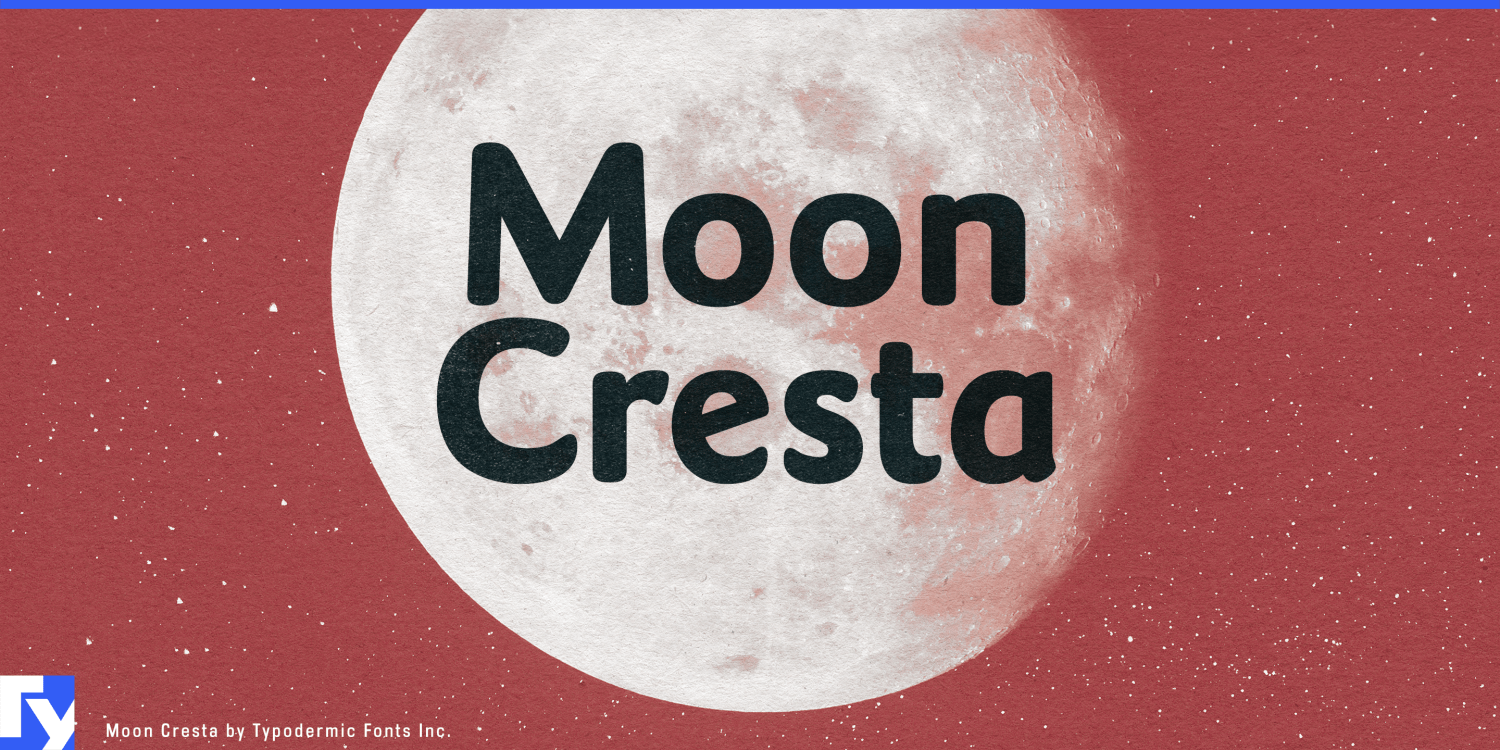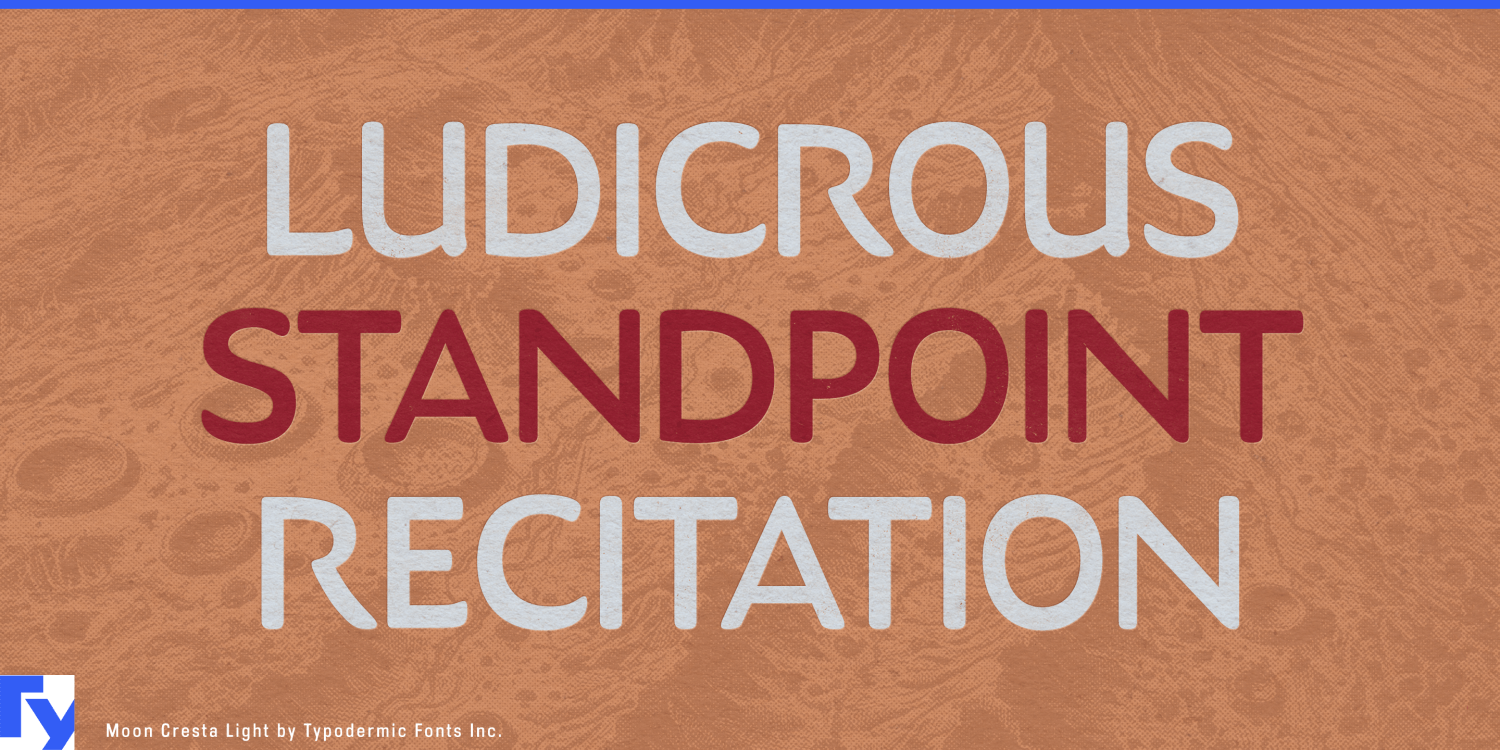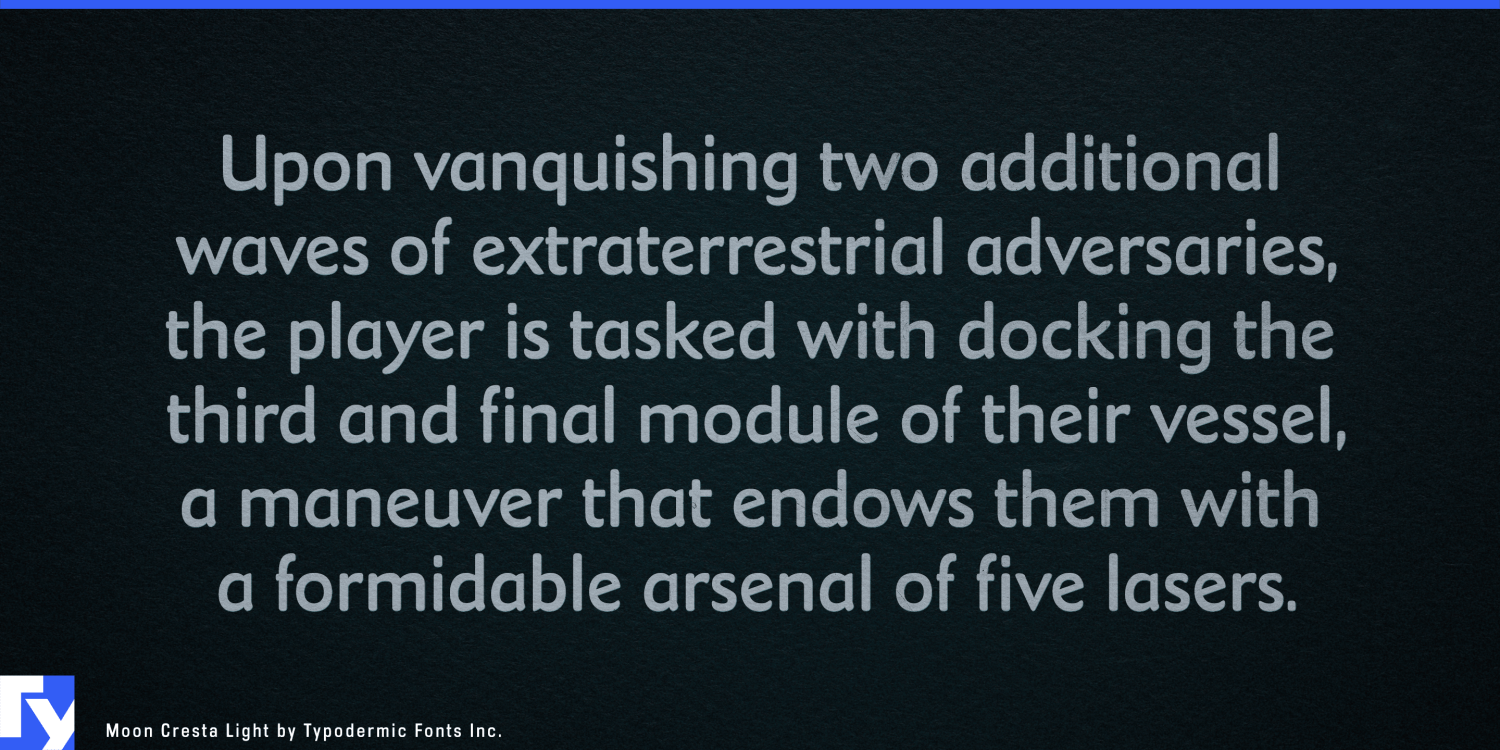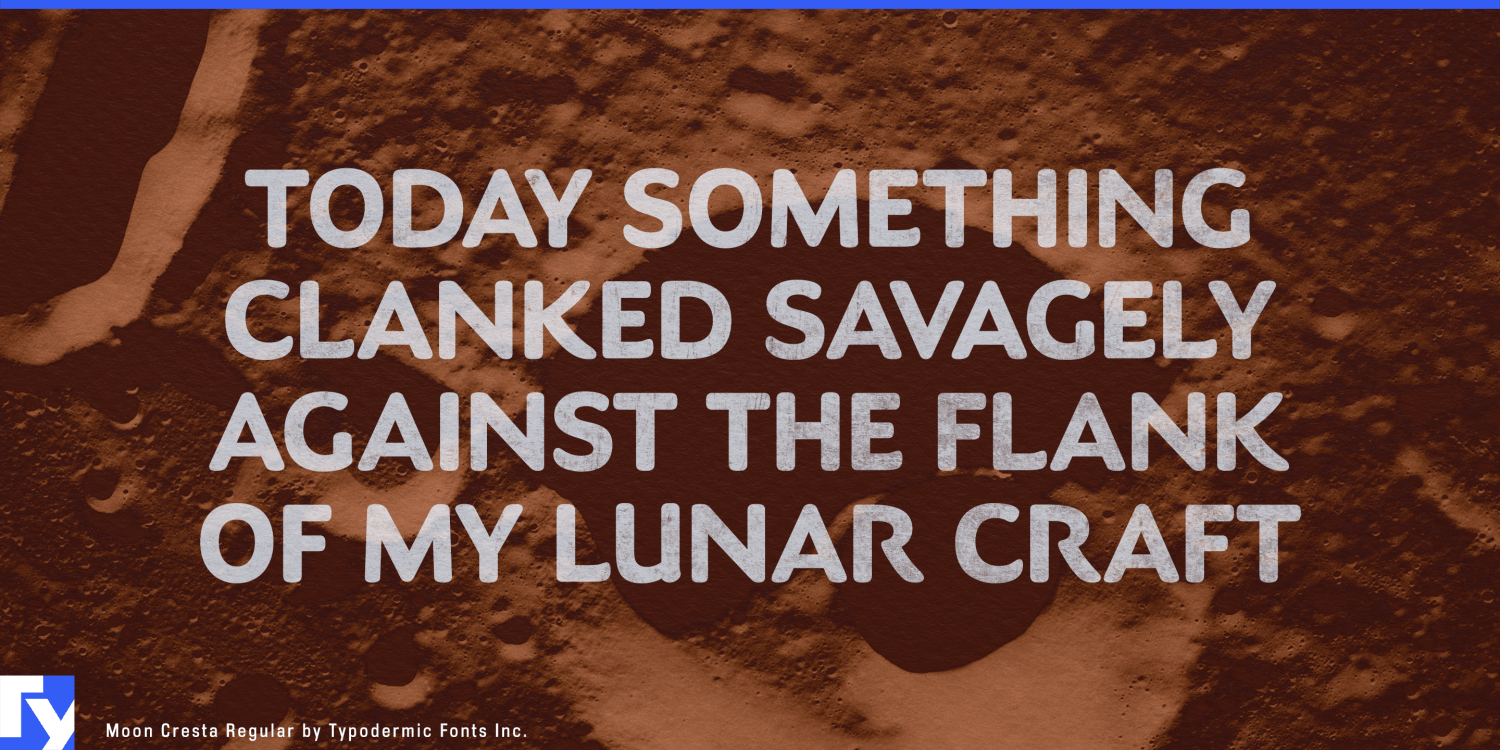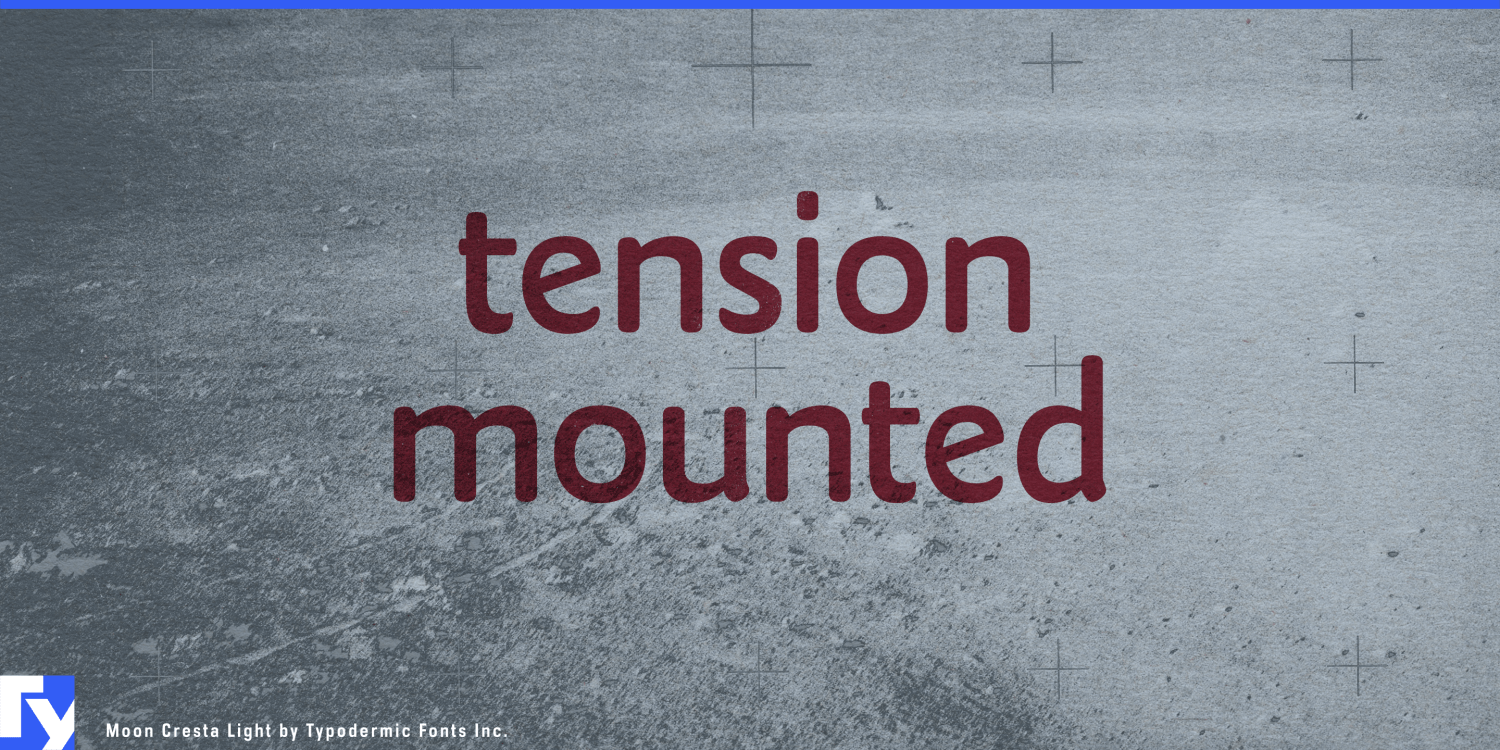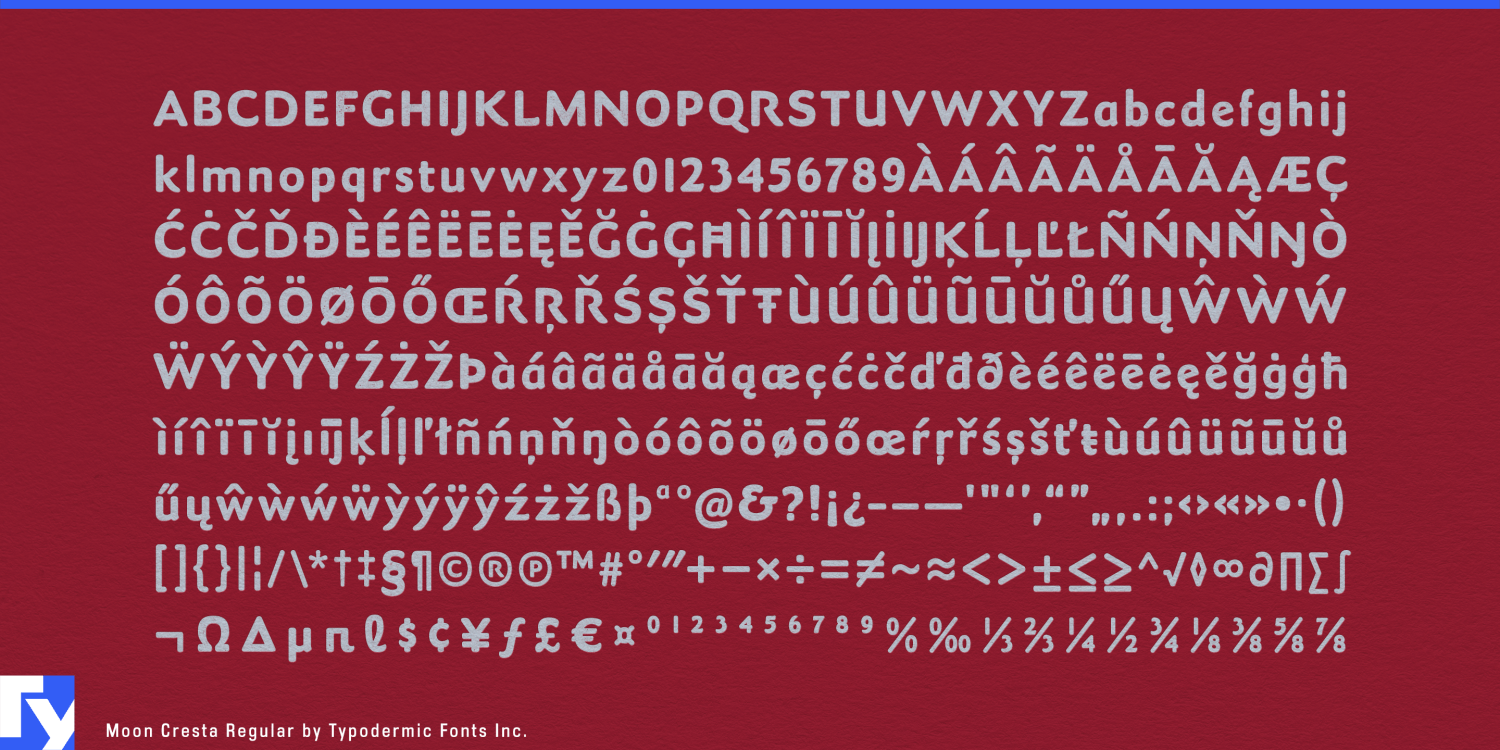
Moon Cresta
Font Family by Typodermic
An approachable sans serif can become generic surprisingly quickly: circles, capsules, rounded corners, and immaculate geometry. Moon Cresta takes a more human route. Inspired by Fredric Goudy’s overlooked sans serif, it retains the uneven rhythm and calligraphic logic of hand-shaped letters, then smooths the forms into a clean contemporary display face. Softened terminals and gently swelling curves make it friendly without pushing it toward children’s lettering.
That distinction is useful for museums, science centres, aquariums, botanical gardens, and other institutions that need to welcome a broad public without talking down to them. Moon Cresta can give a renewable-energy gallery, biodiversity exhibition, robotics zone, planetarium programme, or ocean-conservation campaign an accessible voice across exhibition titles, visitor-map headings, membership graphics, family guides, and short interpretive copy.
The same human quality suits technology that has moved out of the laboratory and into everyday life. Home batteries, EV chargers, heat-pump controllers, air-quality monitors, kitchen appliances, sleep devices, and domestic robots all need identities that can explain sophisticated engineering without making the home feel like a control room. Moon Cresta works especially well around coordinated product families, where model names, launch headlines, packaging, onboarding graphics, and retail displays need consistency without the impersonal finish of a geometric tech sans.
Food offers another kind of system. A cultured-food range spanning yogurt, kefir, butter, and related products; a premium pantry collection of oils, grains, sauces, and preserves; or a national bakery line can use Moon Cresta to suggest something handled and made while remaining orderly enough for many products and varieties. Its calligraphic understructure supplies warmth without relying on handwriting or rustic nostalgia.
Small details reinforce its hand-shaped character, including KA and RA ligatures and a selection of refined f combinations for names and display words that benefit from closer attention.
Moon Cresta’s name comes from a classic arcade game, but its strongest contemporary uses are considerably more terrestrial. Its humanist construction gives public institutions, domestic technology, food systems, and other audience-facing projects an alternative to the increasingly familiar vocabulary of rounded geometric sans serifs.